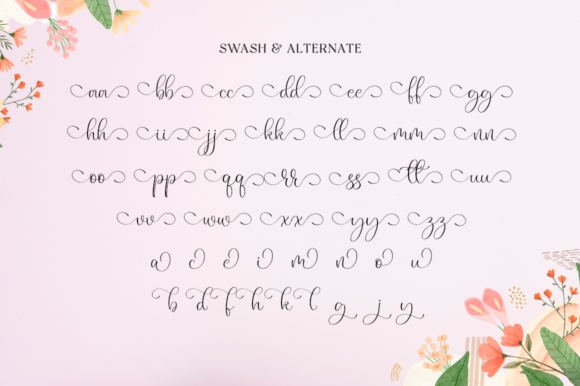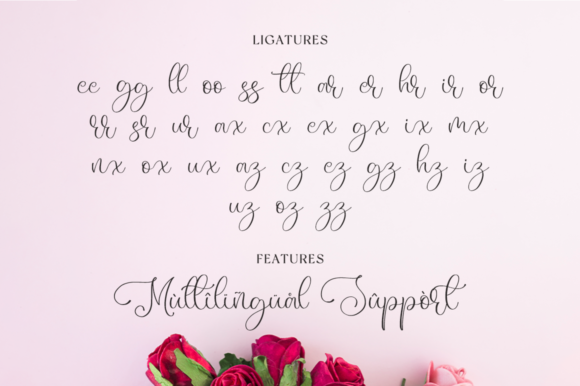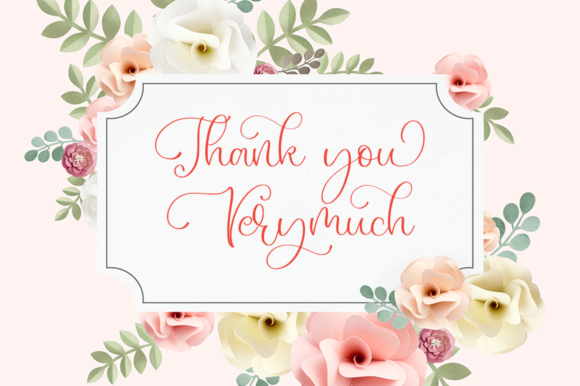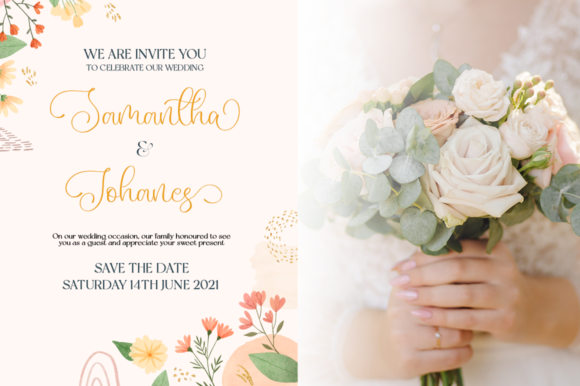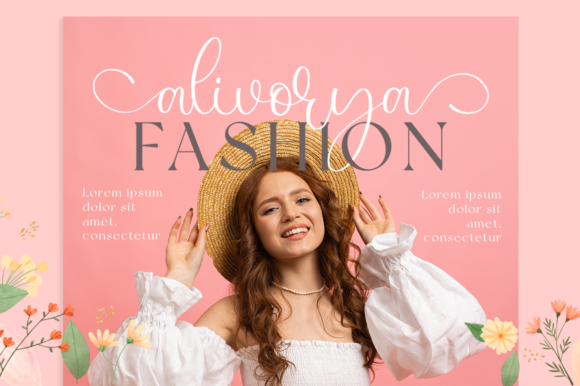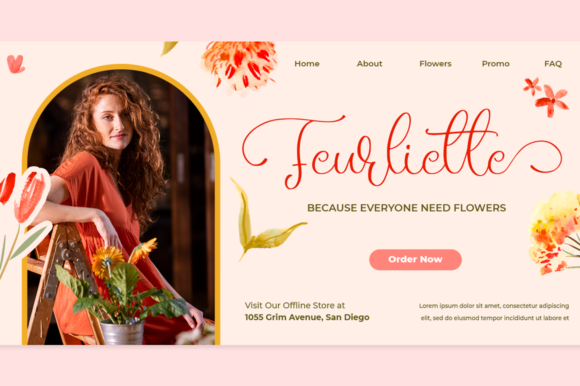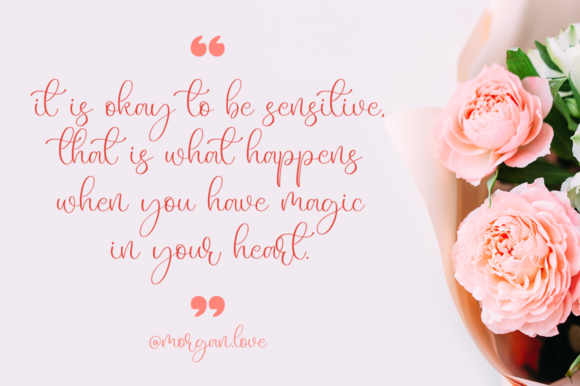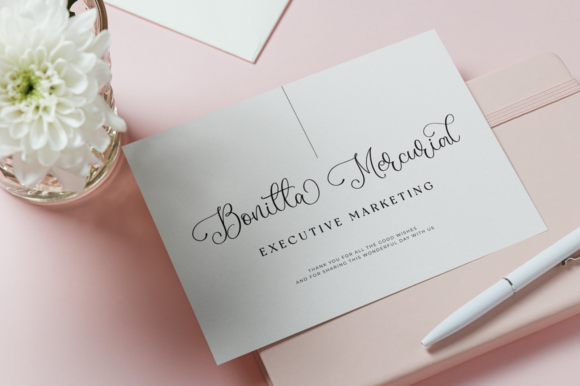
Halsey Font
About Halsey Font
Halsey is a beautiful script font. Its refined style will give an elegant and modern look to any of your creative projects such as logos, branding, invitations, stationery, wedding designs, social media posts, and many more! This font is PUA encoded, which means you can access all glyphs and swashes with ease!